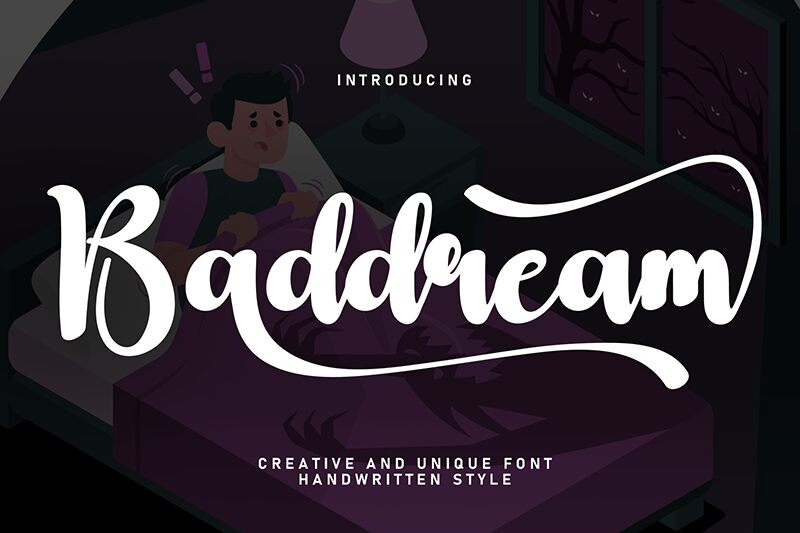
Baddream
Baddream font by Scratchones is a beautifully articulated brush font that combines casual elegance fluidly. Featuring a handwritten aesthetic with an elegant, slightly vintage-inspired style, the font stands out as extremely eye-catching and versatile in its modern application possibilities.
Because of how natural yet stylish the letters look, applications in branding and packaging are where it might shine best. Use it in posters, album covers, logotypes, social media banners and posts images; stationery items such as business cards or greeting cards. You might also employ it in videos and digital content such as websites. Baddream is free to download and use!